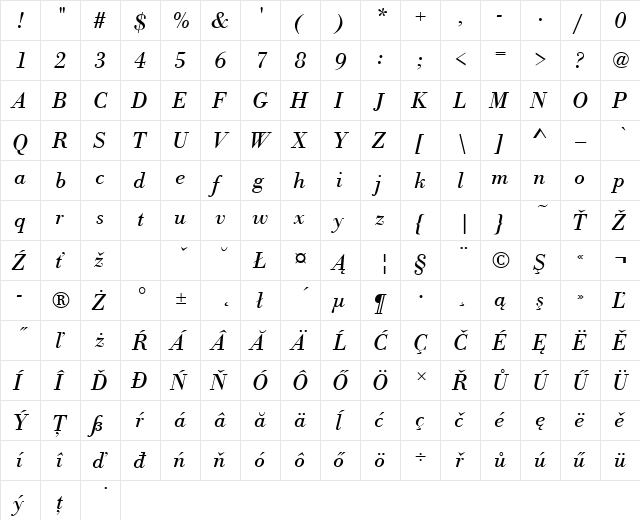
BodoniAntTEE Italic
Design Context for BodoniAntTEE Typeface
BodoniAntTEE takes a measured approach to typography — its balanced proportions and neutral character make it a reliable workhorse for both digital and print work. Its italic angle brings a sense of urgency and motion to the letterforms.
Pro Tip: Use BodoniAntTEE for emphasis, pull quotes, and subheadings where its slanted energy can add rhythm to the layout.